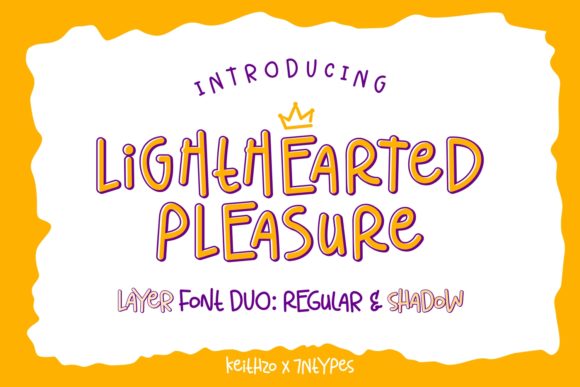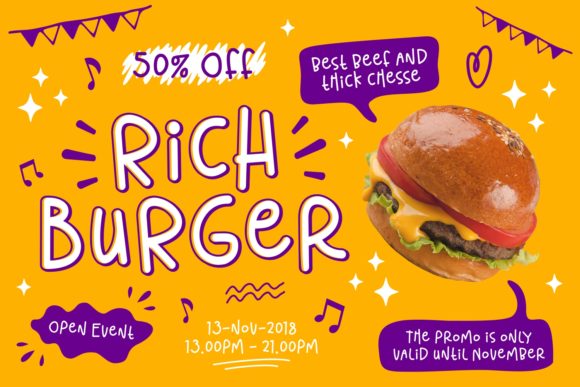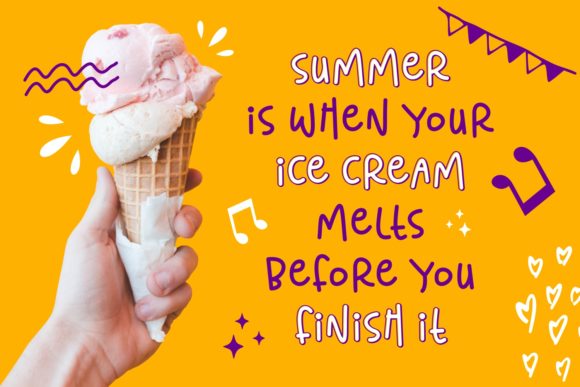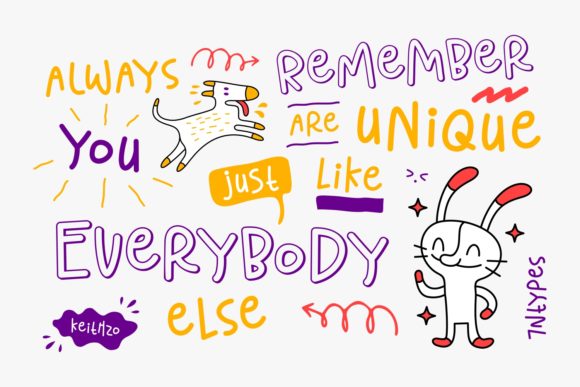
Lighthearted Pleasure Font
About Lighthearted Pleasure Font
The Lighthearted Pleasure is a fun script typeface. It comes in two styles: regular and shadow. Both styles are well-measured when they are combined, the shadow one is properly layered to the regular one. It works great for pop-up text designs!